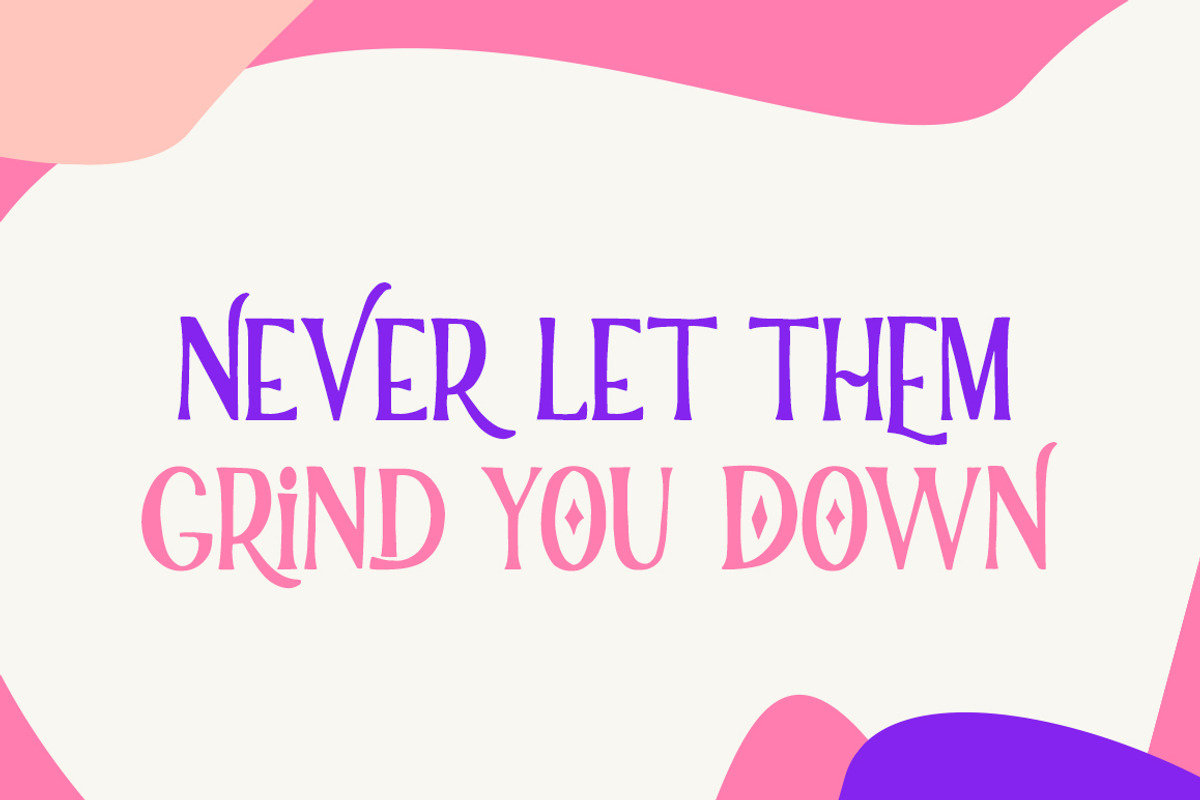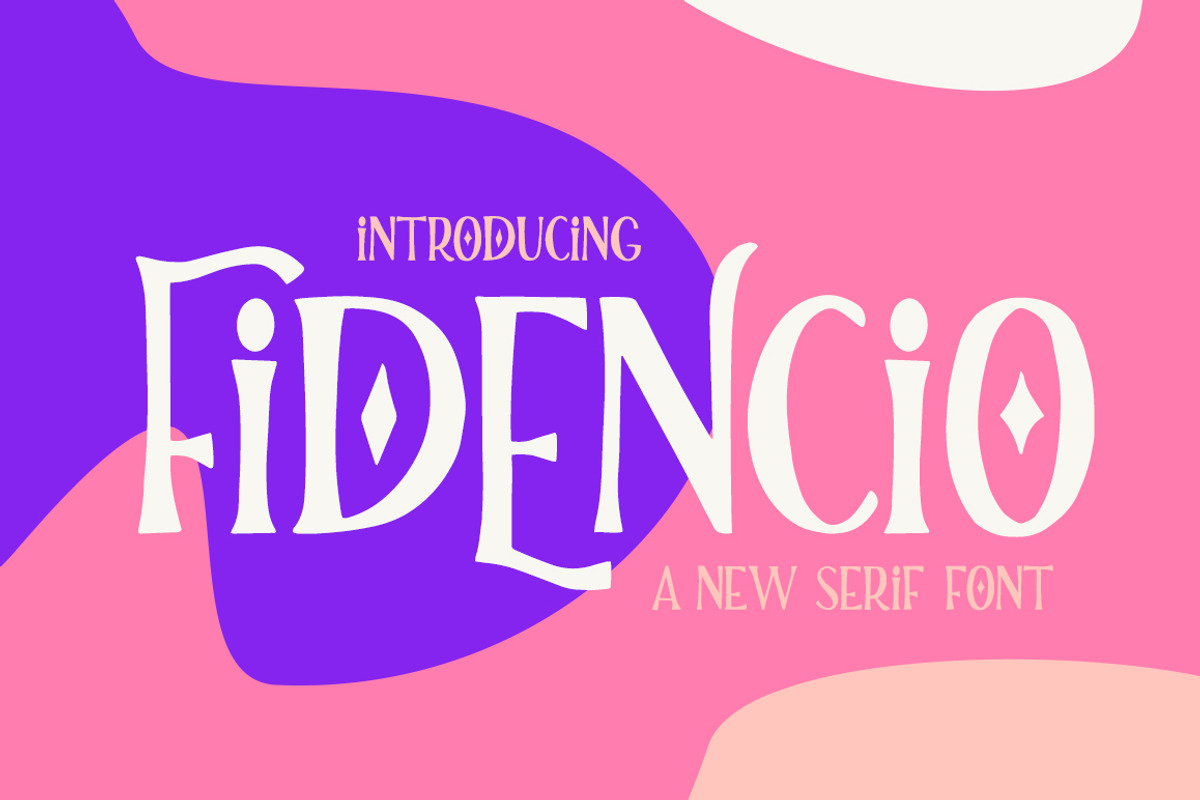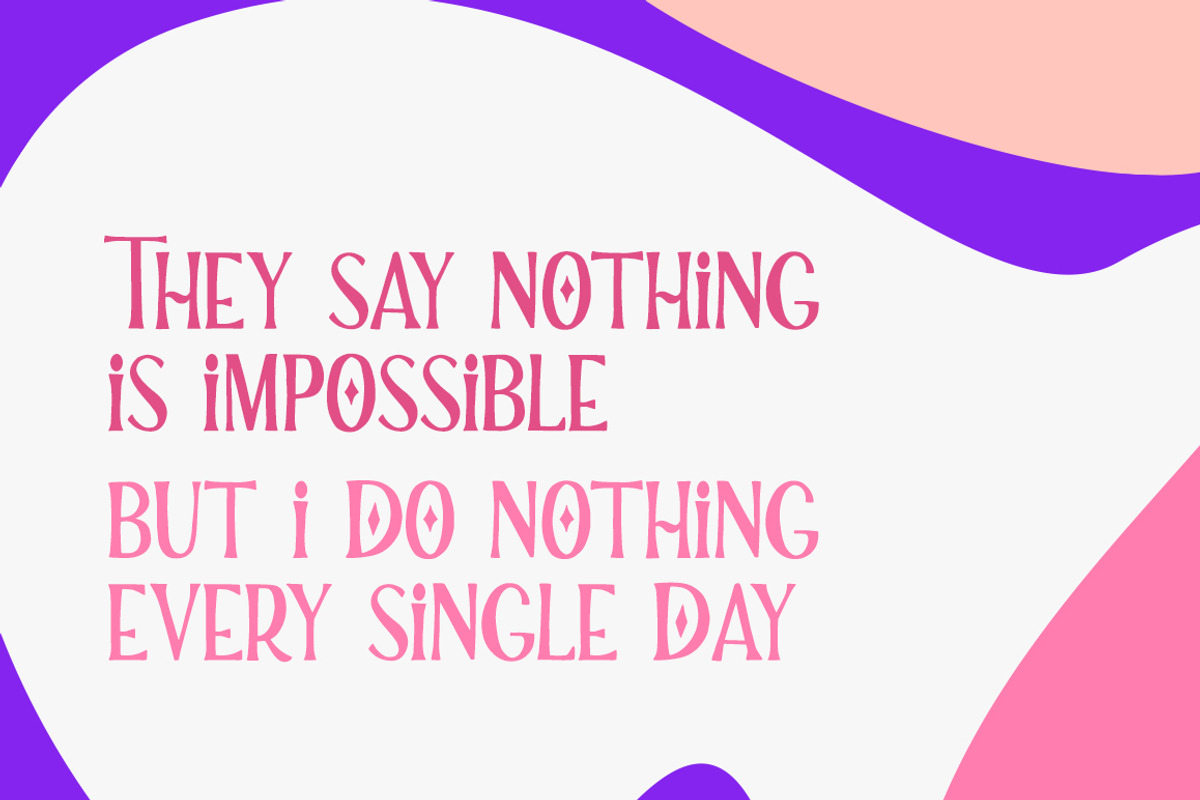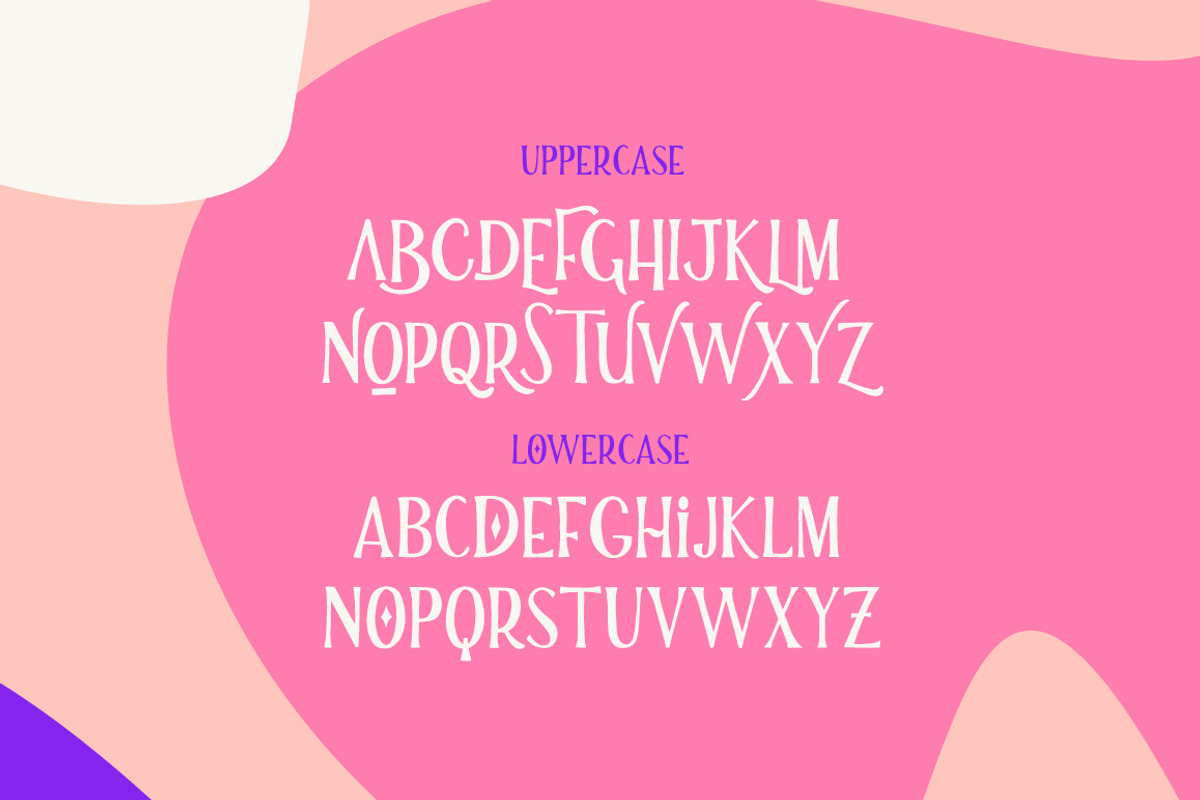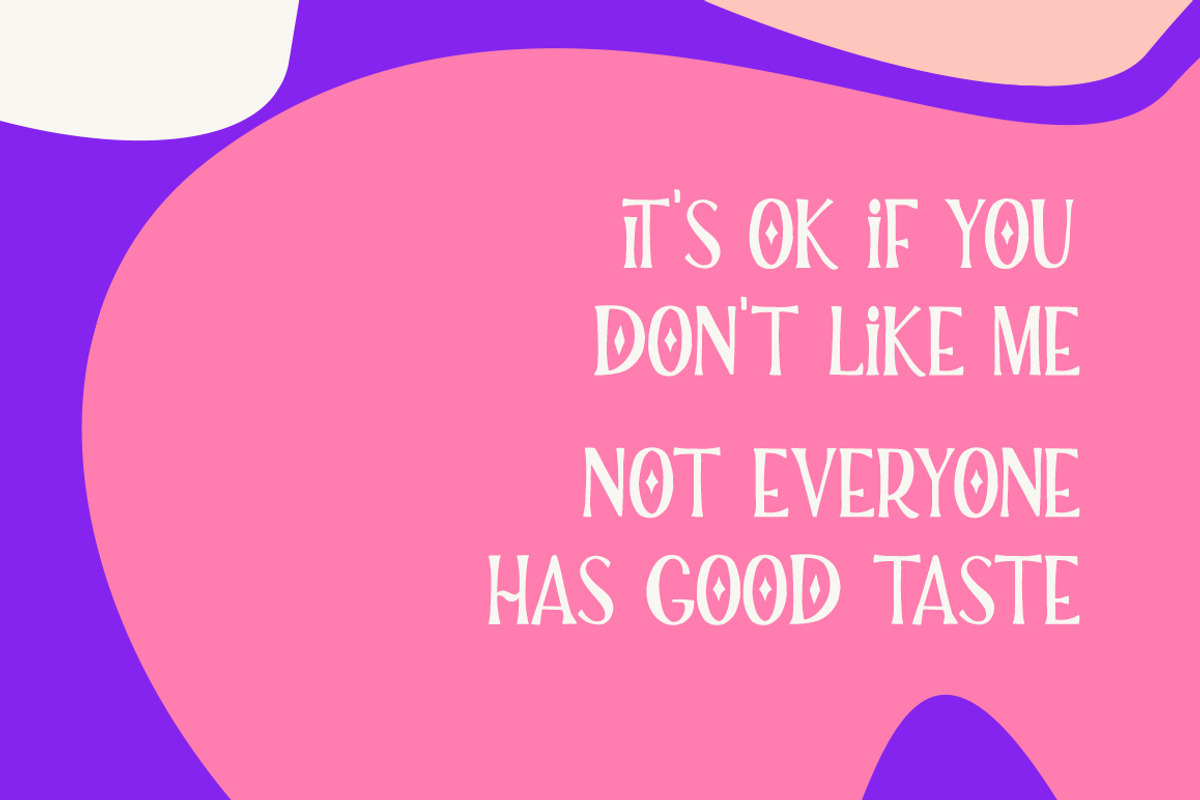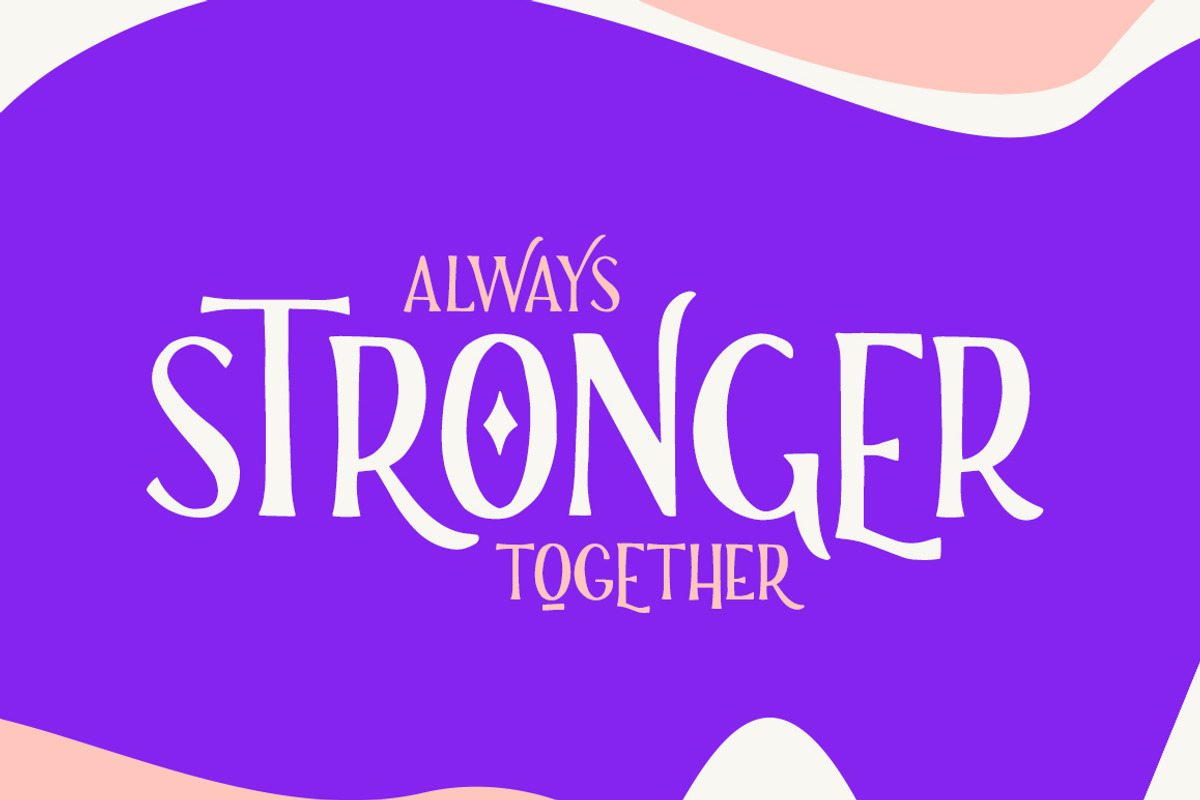
Fidencio Serif Font
Why Fidencio Serif Font is worth a look
Fidencio Serif Font by Salt & Pepper Designs fits naturally into Branding, posters, packaging, typography.